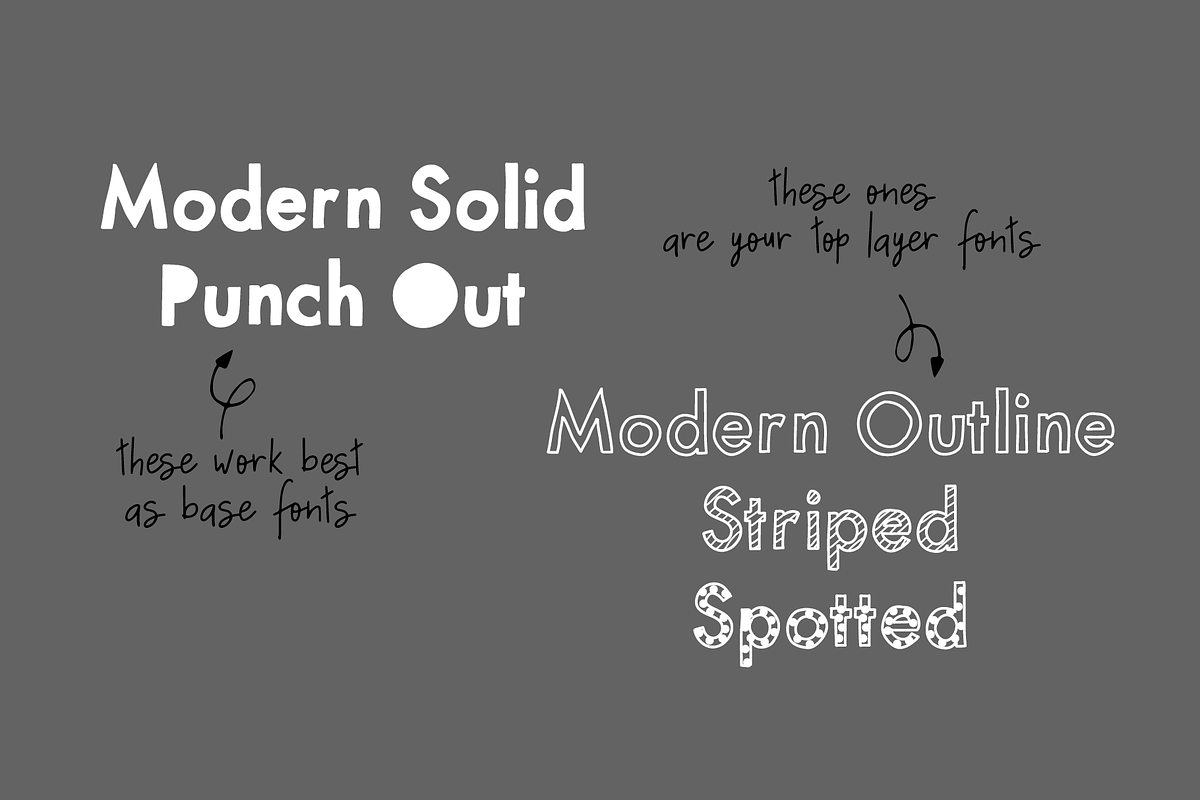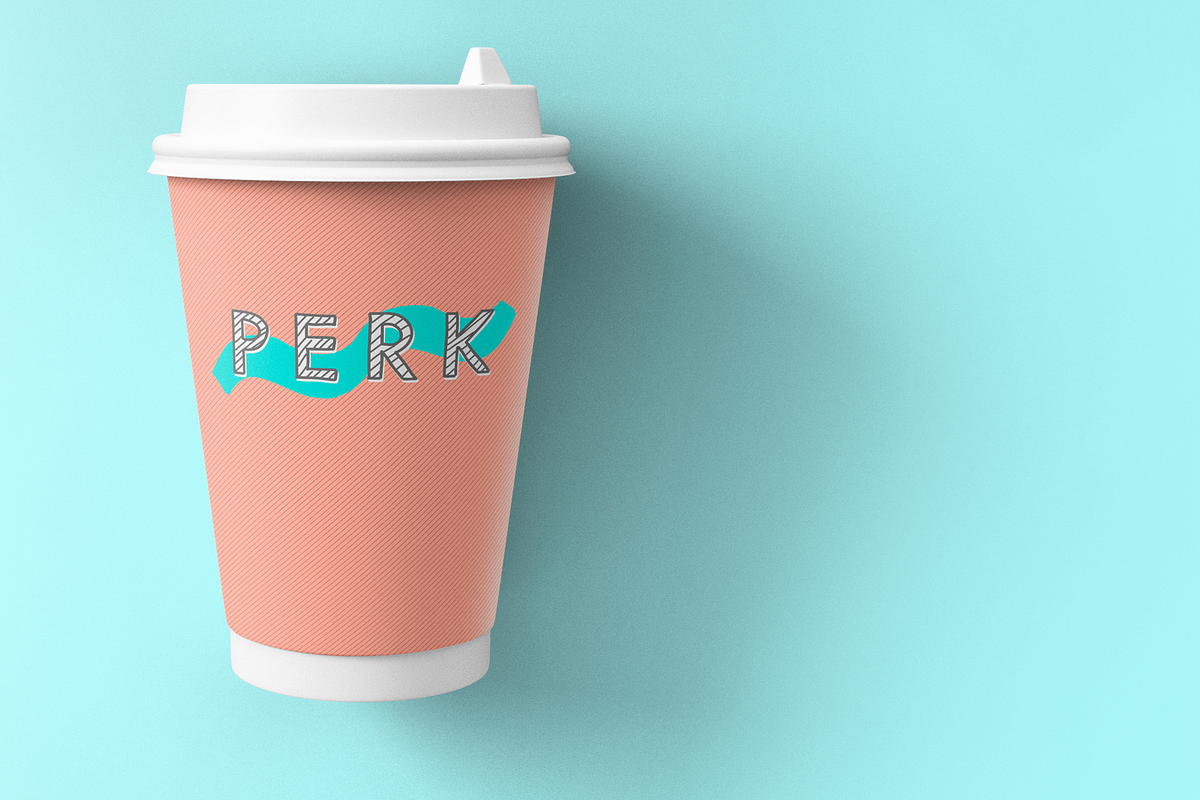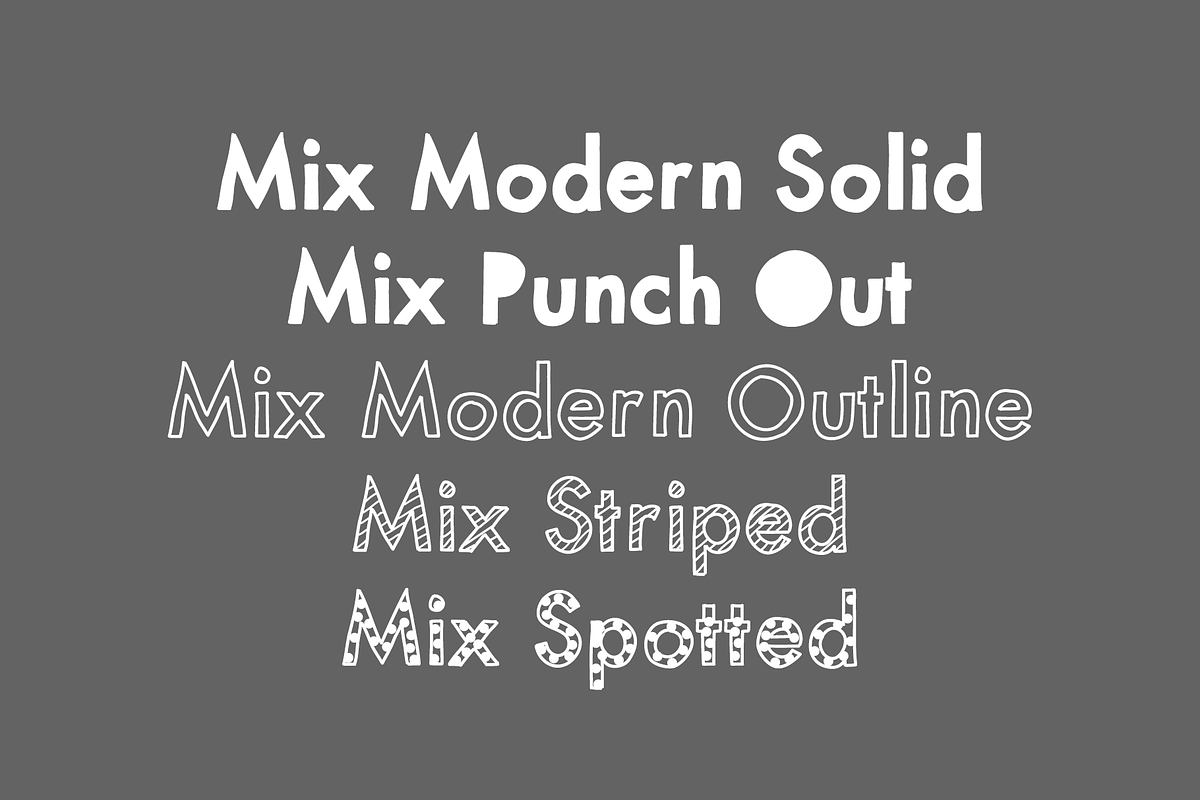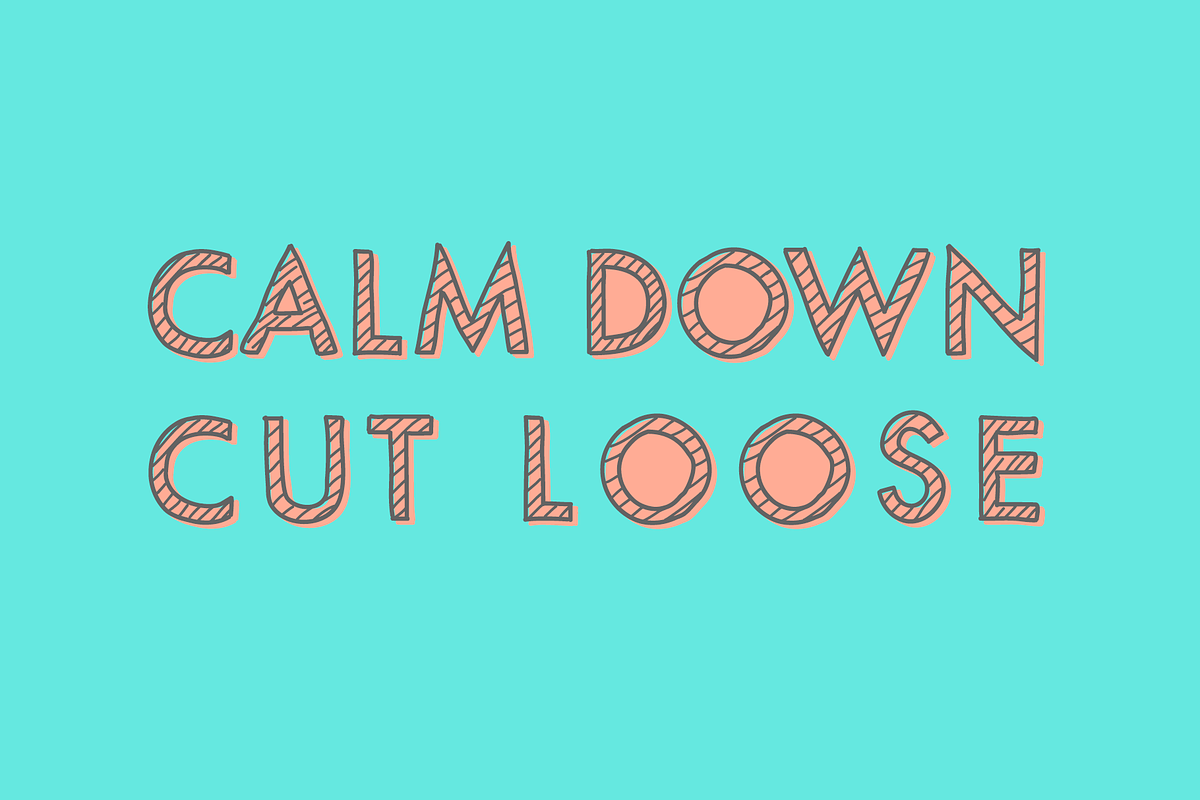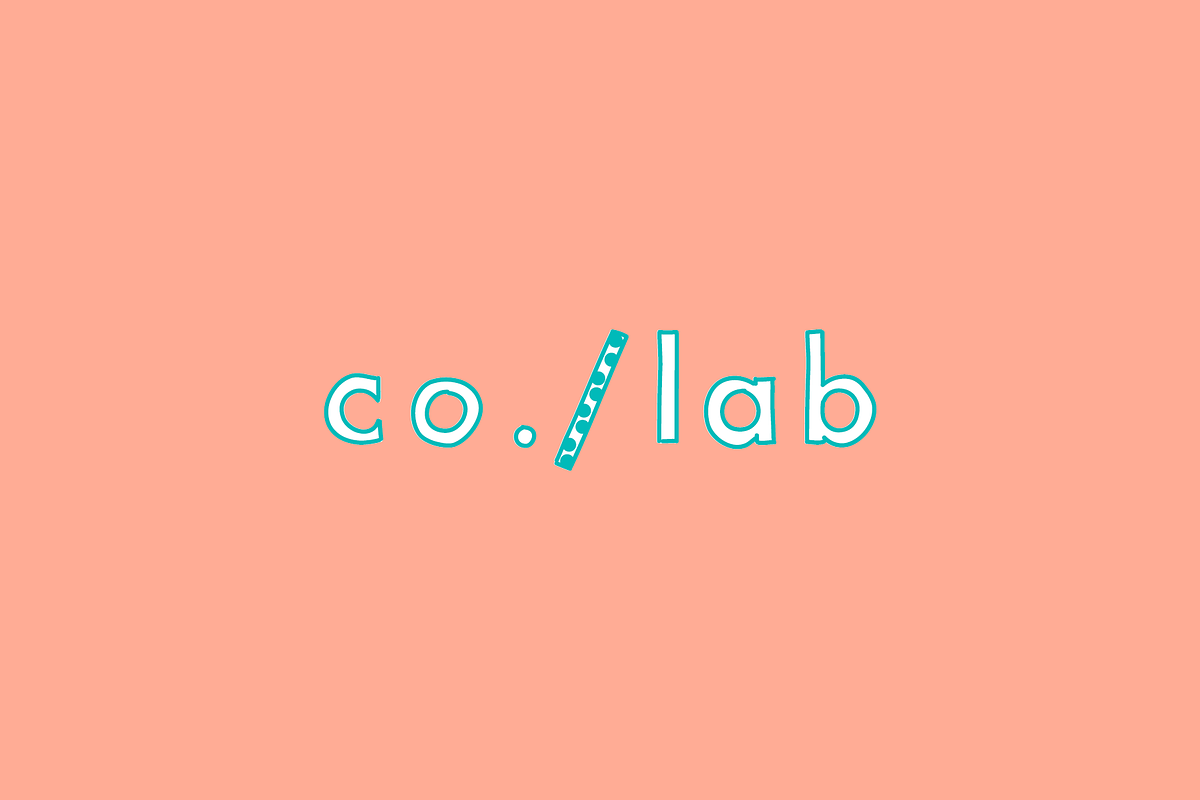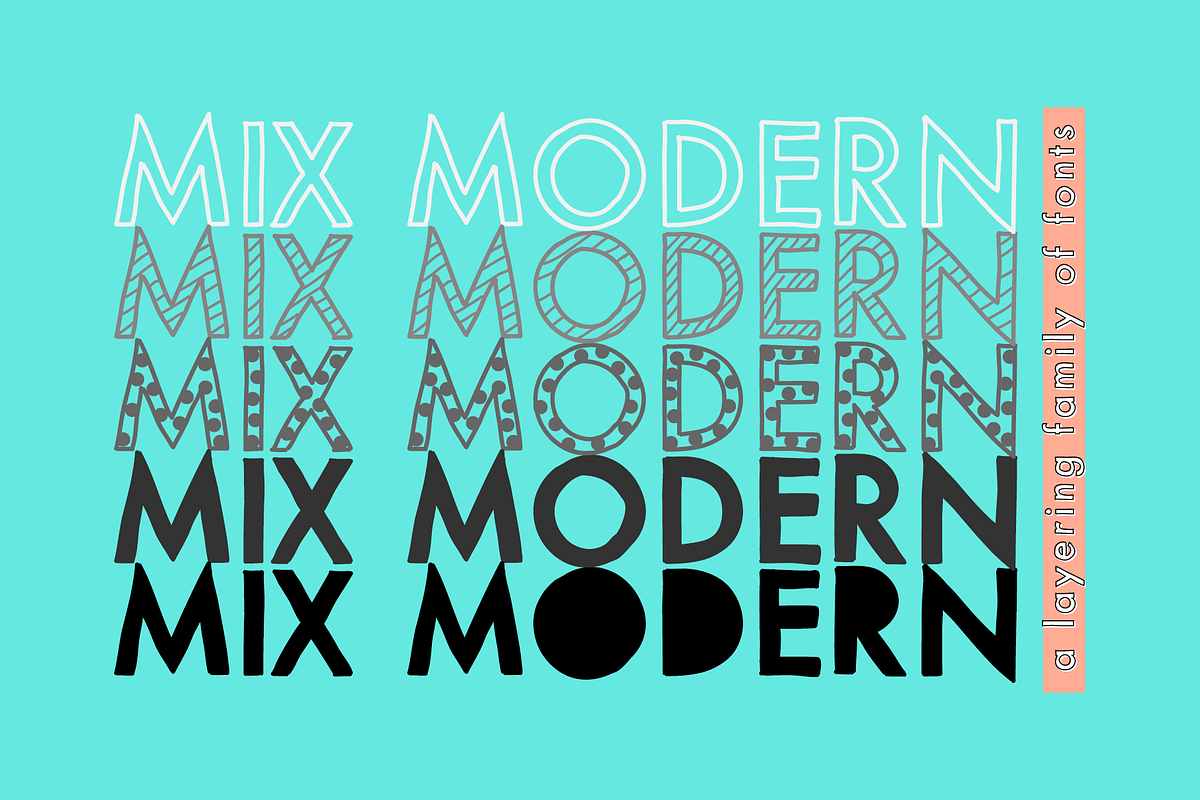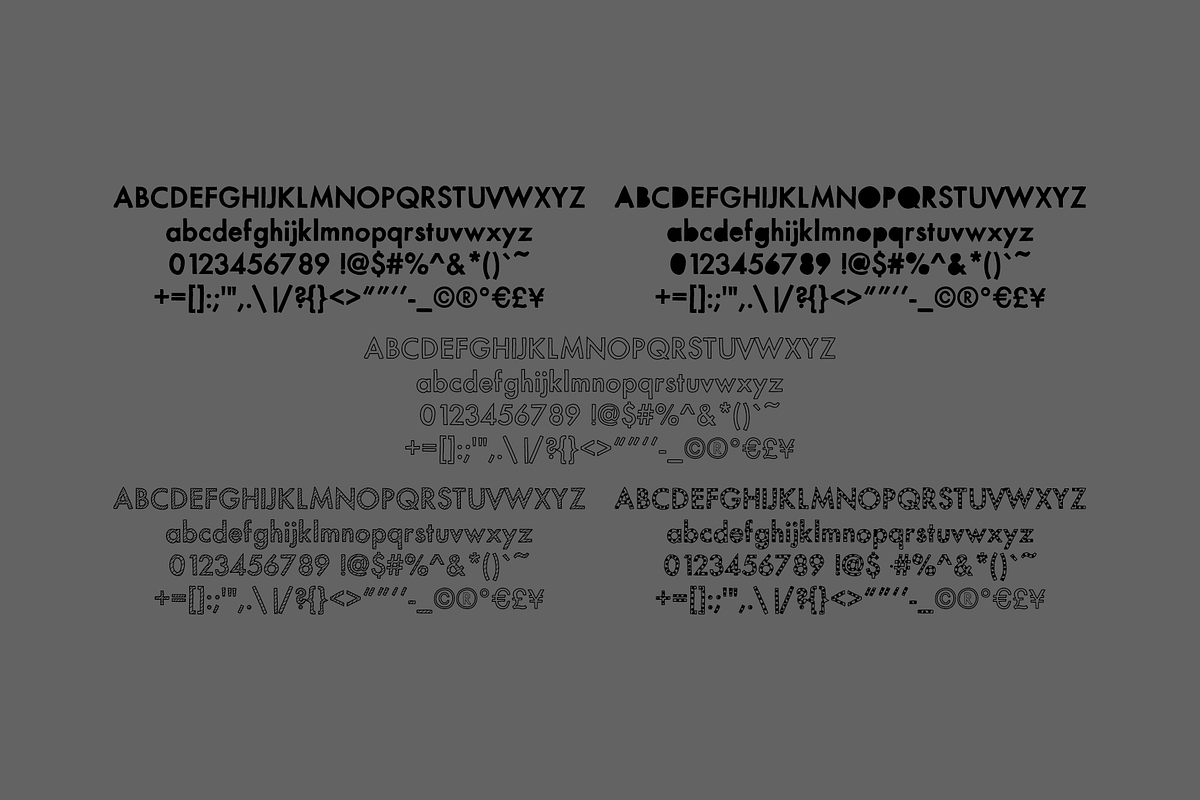
Mix Modern — A Layering Fonts Family
MIX MODERN is a layering family of fonts—a bundle of five different styles. These fonts can be used alone or in combination. Switch up among five of my favorite fonts to create fun and whimsical variations. Get creative! This font family is perfect for handmade and DIY themed projects.
(3) Mix Modern Outline